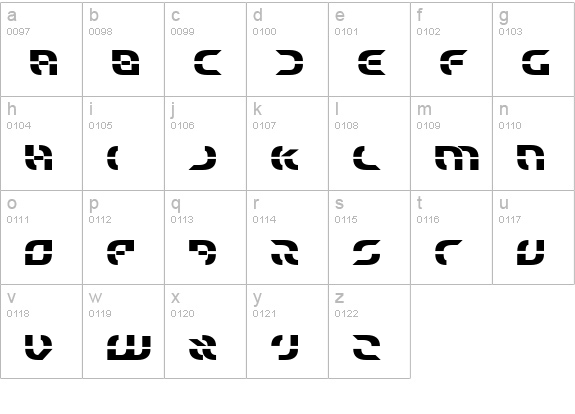
Starfighter Bold is a strong, high-contrast variant in the Starfighter typeface family \xE2\x80\x94 well suited to headlines, attention-grabbing titles, and strong calls-to-action.
Starfighter Bold font is a striking and eye-catching typeface that exudes a sense of boldness and modernity. Its clean lines and strong presence make it perfect for headlines, logos, and other design projects that require a touch of sophistication and confidence. The sharp angles and sleek curves in Starfighter Bold give it a futuristic and sleek appearance that commands attention. Best of all, Starfighter Bold font is available for free! You can easily download this fantastic font at FontsMarket.com, where you can access a wide range of high-quality fonts for all your design needs. Don't miss out on the opportunity to add this dynamic and powerful typeface to your font collection today.